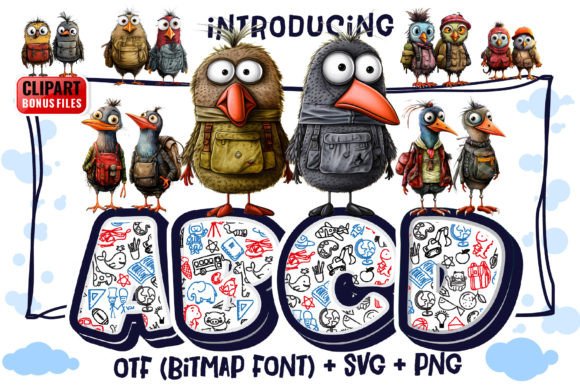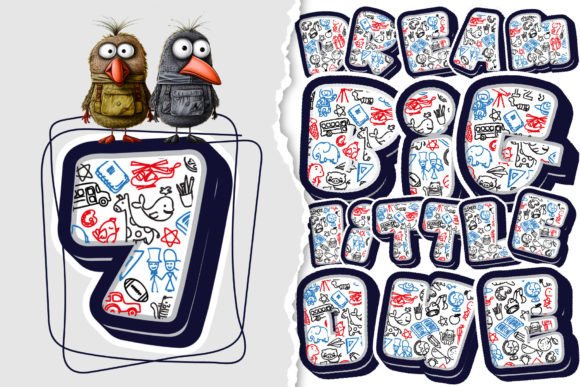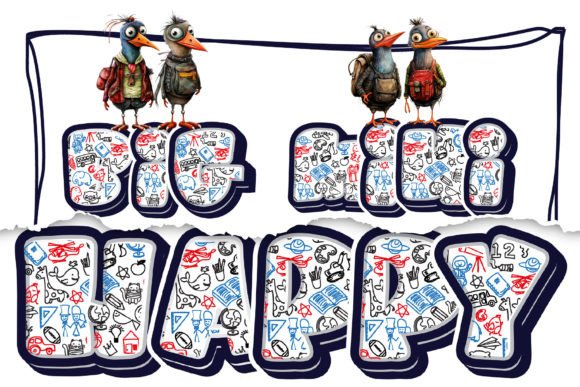
Kids Doodle Font
About the Kids Doodle Font
Let us introduce you to Kids Doodle Font, where timeless design meets modern craftsmanship. The Kids Doodle font bursts with playful, hand-drawn charm. Each letter looks like it was crafted by a child with boundless imagination, featuring thick, bold lines and delightful embellishments like stars and hearts. Perfect for children’s projects, birthday invites, or anything needing a touch of whimsy, this font brings a sense of joy and creativity to every word.
Its playful energy makes it ideal for children’s books, greeting cards, or branding for playful businesses targeting a young audience. It works exceptionally well in headlines and short, impactful text on packaging or posters. However, its highly decorative nature makes it unsuitable for body text or UI elements where legibility is paramount. Long paragraphs set in Kids Doodle would be difficult to read.
For a balanced design, pair Kids Doodle with a clean sans-serif like Open Sans for body copy, providing a strong contrast in style and improving readability. Alternatively, a simple serif like Lora can add a touch of classic elegance while maintaining visual harmony. Avoid pairing it with other highly decorative fonts, as this could create visual clutter.
The font’s overall personality is undeniably cheerful and whimsical. Its bold strokes and playful embellishments project a sense of fun and childlike wonder, making it a perfect choice for projects that need a dose of uninhibited joy and creativity.